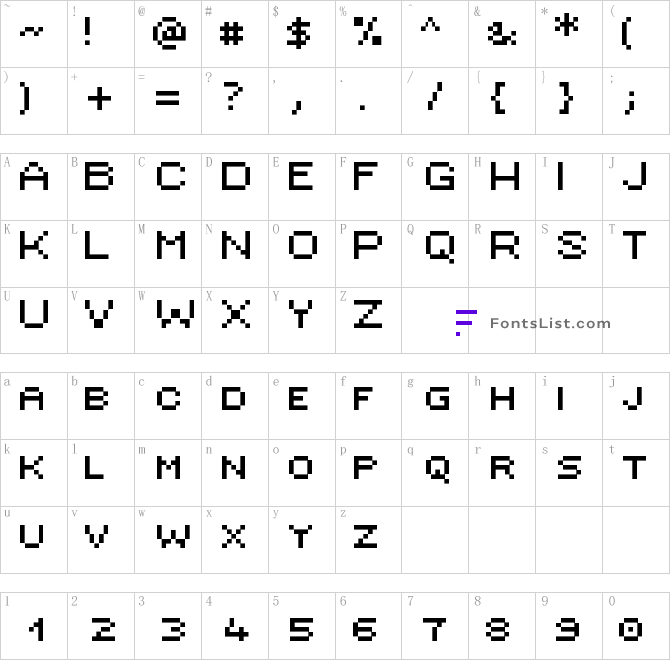
- Font Name:Ambitsek
Ambitsek.ttf is a very beautiful artistic font, Ambitsek.ttf is widely used in the design and printing of various books and pictures,Ambitsek.ttf has a strong visual impact,Ambitsek.ttf is a commonly used font in newspapers, magazines and books, and is used in posters, e-commerce Poster design, store design, logo design, font design and other fields.Ambitsek.